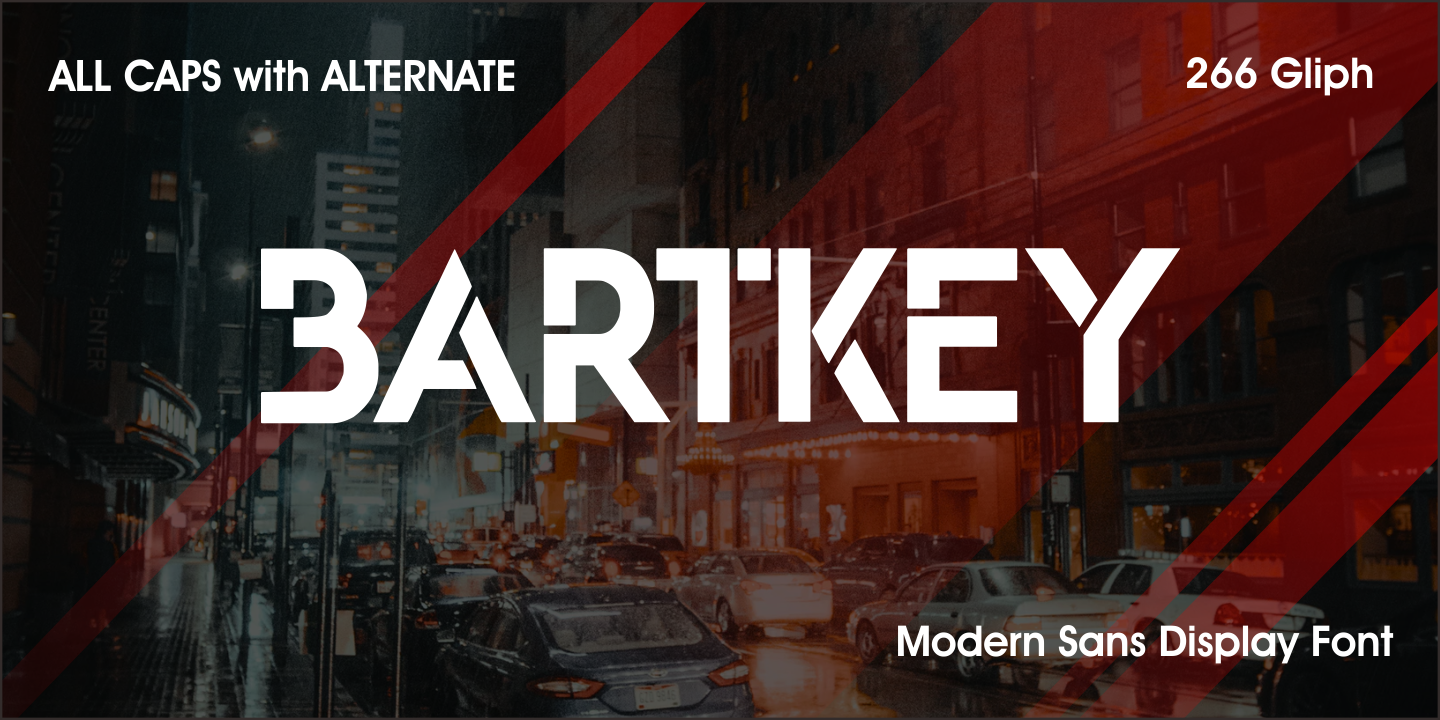
Bartkey Font is a sleek and exceptionally versatile typeface, perfectly suited for projects that demand a clean, contemporary aesthetic with outstanding functional clarity. Imagine it forming the crisp typography for modern tech company branding, providing clear and inviting text for sophisticated app interfaces, or enhancing the readability of online publications and digital reports. It's also an excellent choice for crafting impactful magazine layouts, designing effective and minimalist signage systems, or bringing a reliable and structured presence to extensive digital documents and e-commerce platforms. If you're looking for a font that combines a strong visual presence with exceptional legibility and adaptability, Bartkey Font is an outstanding selection.
What makes Bartkey Font so exciting? It’s its meticulous design, balancing geometric precision with subtle humanist touches, which allows it to be incredibly adaptable for a wide array of applications. This font boasts expertly crafted letterforms and optimized spacing that ensure exceptional readability across various sizes and mediums, from sharp digital displays to high-resolution printed materials. Its clean lines, neutral yet inviting character, and professional appearance allow it to integrate seamlessly into diverse design ecosystems, supporting content without distraction while conveying a forward-thinking and professional sensibility. Designers will appreciate its understated elegance and its ability to lend an air of sophistication and modernity to any project, making it a highly dependable choice for achieving a polished and professional outcome.
The Bartkey Font family is typically designed with a comprehensive range of weights and styles to provide maximum flexibility for designers, often boasting an extensive character set suitable for global applications. You can generally expect to find numerous variations such as Thin, Light, Regular, Medium, SemiBold, Bold, ExtraBold, and Black, accompanied by matching italic versions for each. This extensive family ensures that Bartkey Font can be used to create sophisticated typographic hierarchies, maintain consistent branding across diverse mediums, and offer flexible design solutions for both print and digital environments. Discover the unwavering clarity and contemporary style of Bartkey Font Free Download for your next design endeavor.